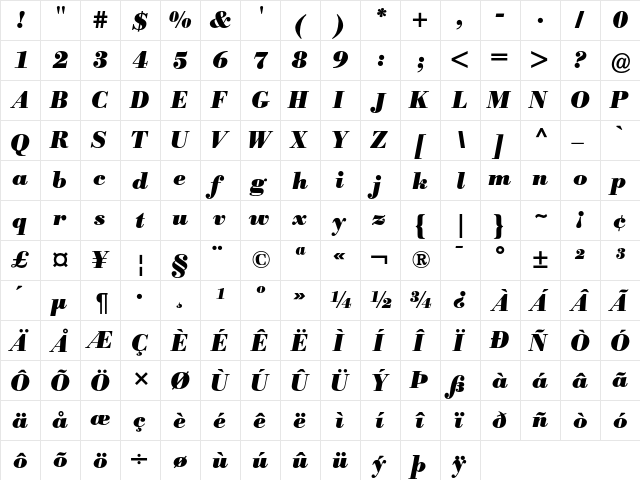
Bodoni BE Bold Italic Font Preview
Bodoni BE Bold Italic
Bodoni BE Bold Italic Font Details
Design Context for Bodoni BE Typeface
Bodoni BE is a composed and adaptable typeface that performs quietly and consistently across a wide range of design contexts. Its italic angle brings a sense of urgency and motion to the letterforms. The heavy weight commands attention and anchors typographic hierarchies.